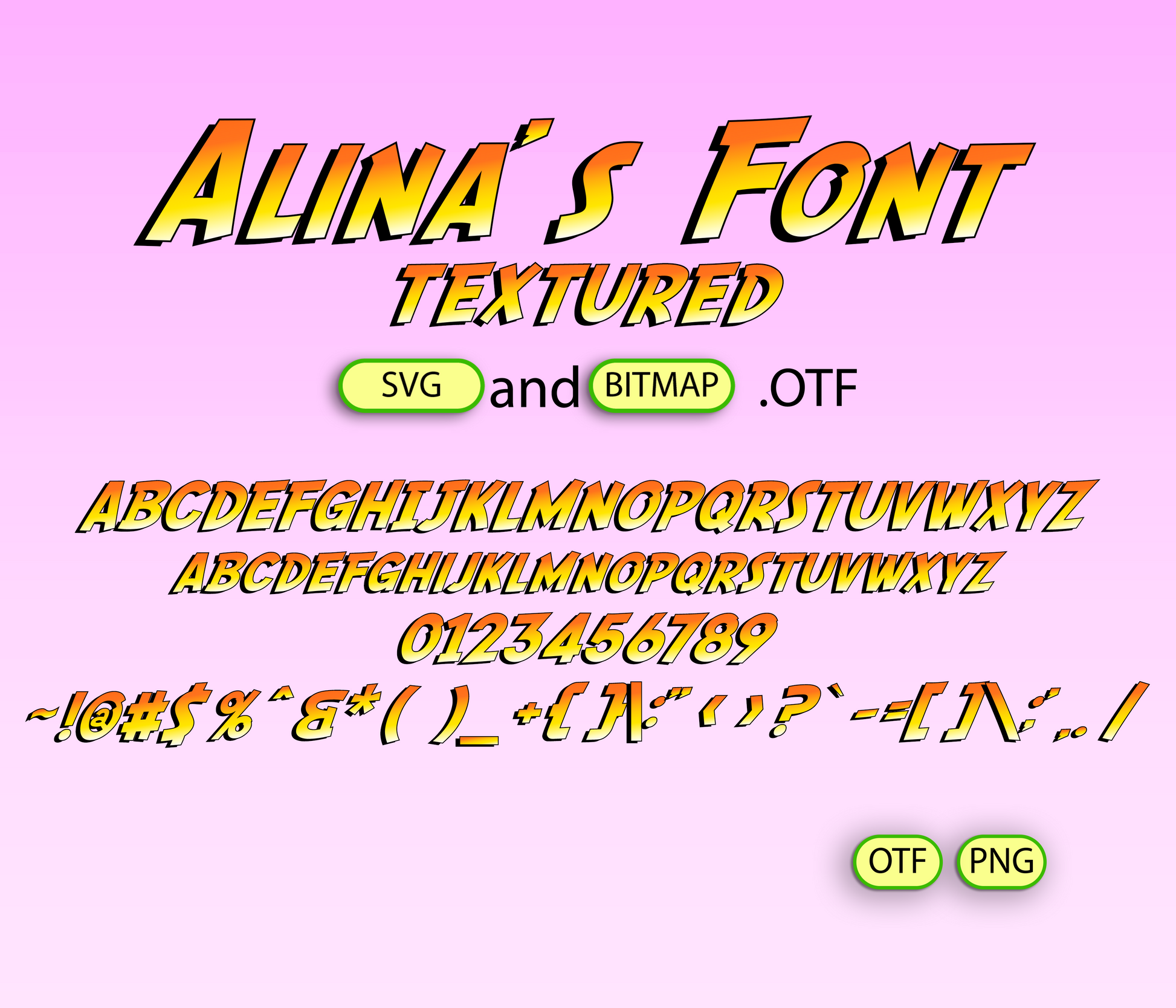
Archaeologist's Quest Font Textured
Embark on an Adventure with the Archaeologist's Quest Font
Channel the thrill and mystery of one of cinema's most beloved adventurers with our Archaeologist's Quest-inspired font. This font is perfectly suited for fans and creators looking to capture the rugged, daring spirit of an iconic archaeologist in their projects. Whether crafting promotional materials for themed events, designing content for adventure blogs, or creating unique merchandise, our Archaeologist's Quest font ensures your designs resonate with the excitement and historical intrigue of classic adventure tales.
Featuring robust, angular letters with a slightly weathered look, our Archaeologist's Quest font reflects the classic feel of old maps and adventurous escapades. It includes a complete set of characters—uppercase, lowercase, numbers, and special symbols—making it versatile for a wide array of applications:
Features Our Archaeologist's Quest font package includes both textured and non-textured variants to cater to various design needs and preferences. Importantly, it features a version with no texture, ensuring compatibility with all types of software, including Canva. This makes it incredibly easy to use for designers of all skill levels, enhancing its accessibility and ensuring smooth integration into any project.
Many people seek out an Archaeologist's Quest font generator online to mimic the look of the Archaeologist's Quest font. Steer clear! No font generator can match the quality of this Archaeologist's Quest font, which comes in two versatile versions: a textured colored font and a simple font. This is particularly beneficial if you plan to use it with a cutting machine.
Our Archaeologist's Quest font not only pays tribute to legendary explorers but also inspires creativity and adventure in every design. With its authentic style and broad applicability, this font allows you to craft messages that are as bold and exciting as a classic adventure tale. Get ready to lead your audience on a journey through time and imagination with every word and design crafted with our adventurous font.